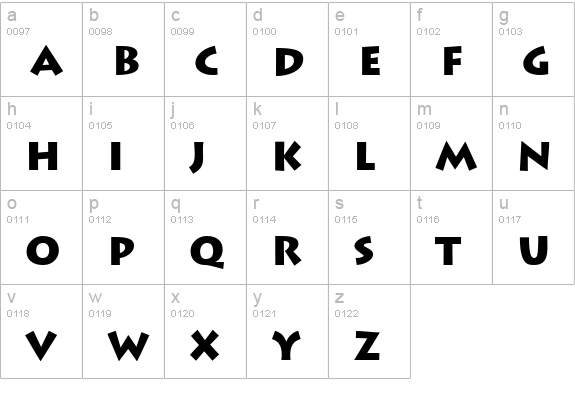
Lithographer Font Details
Lithographer font is a versatile and elegant typeface that exudes a timeless and sophisticated charm. With its clean lines and classic aesthetic, this font is perfect for a wide range of design projects, from branding to editorial design. Its sleek and modern look makes it a great choice for both digital and print applications. What sets Lithographer font apart is not only its stunning design, but also the fact that it is available for free download at FontsMarket.com. This means that you can easily access this high-quality font without any cost, making it a valuable addition to your font library. Whether you're working on a logo, website, or any other creative project, Lithographer font is sure to add a touch of elegance and professionalism. Download it for free today and elevate your designs with this exceptional typeface.